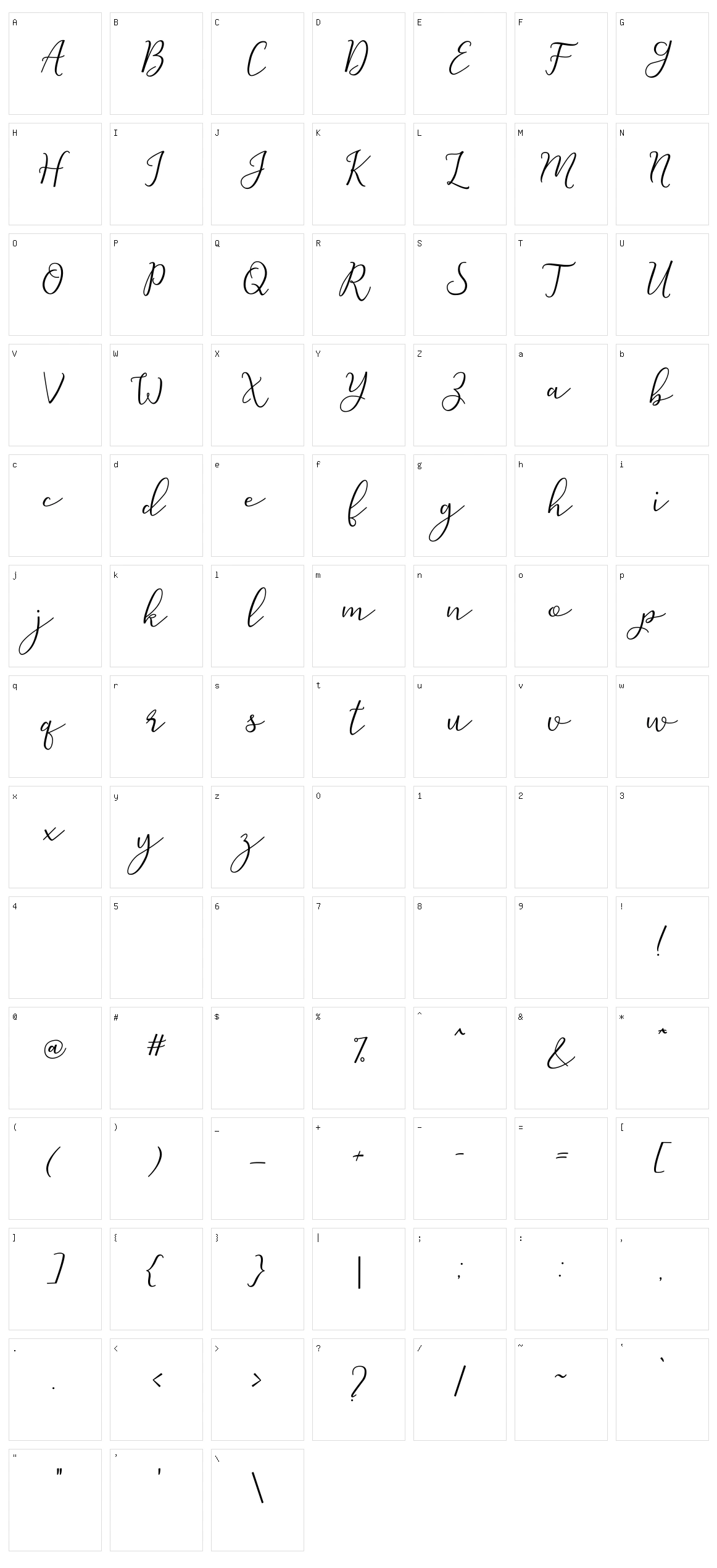
The free font Michel Flow is carefully designed by Greatbleast ., showcasing a thoughtful balance of creativity and usability and falls under the Script font style. When you download the ZIP file, it contains only 37.45 KB of font files, making it lightweight and quick to download. Please review the license details below to understand permitted usage and distribution rights. If license information is not available, we recommend using this font for personal projects only or contacting the author directly for commercial usage permissions.